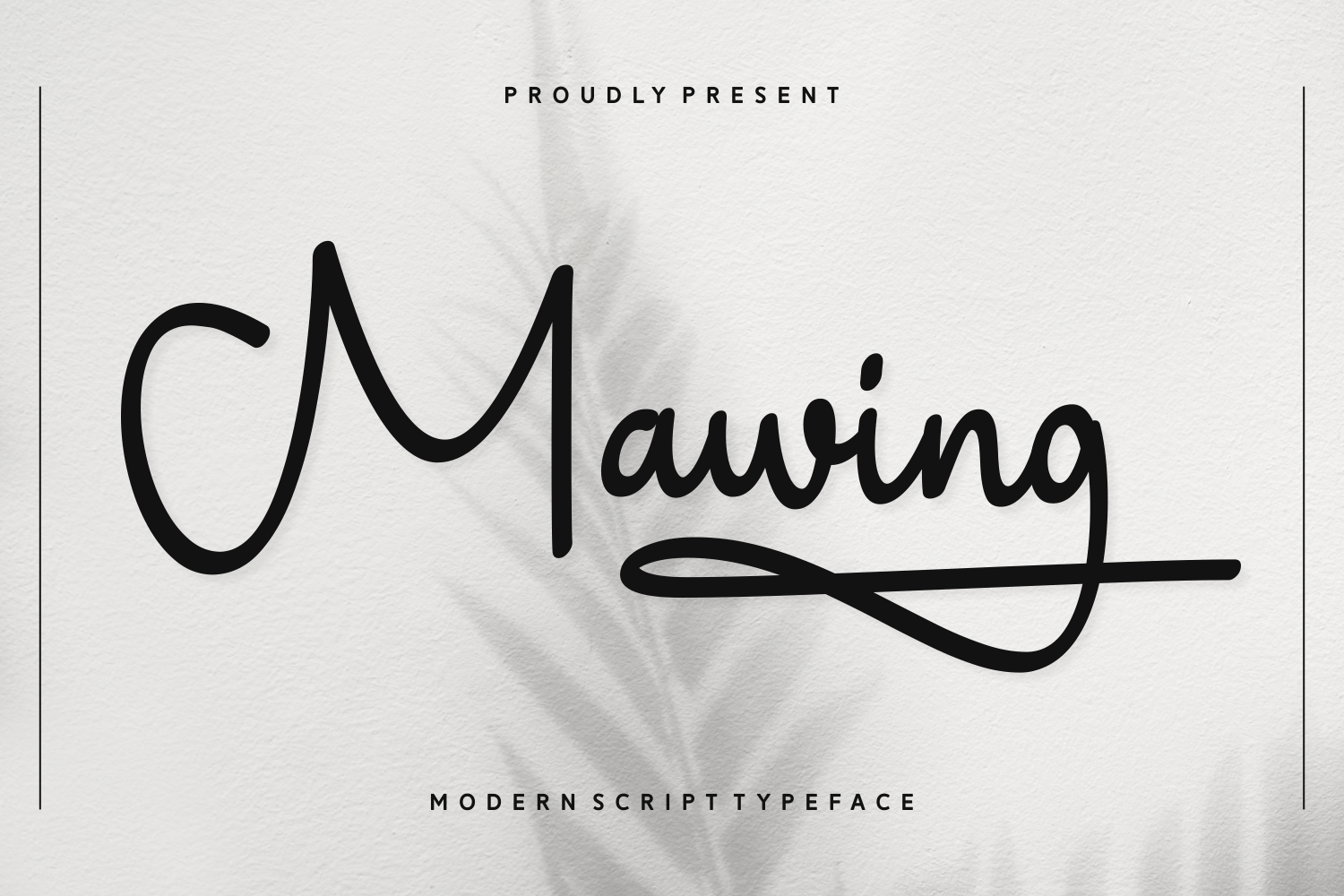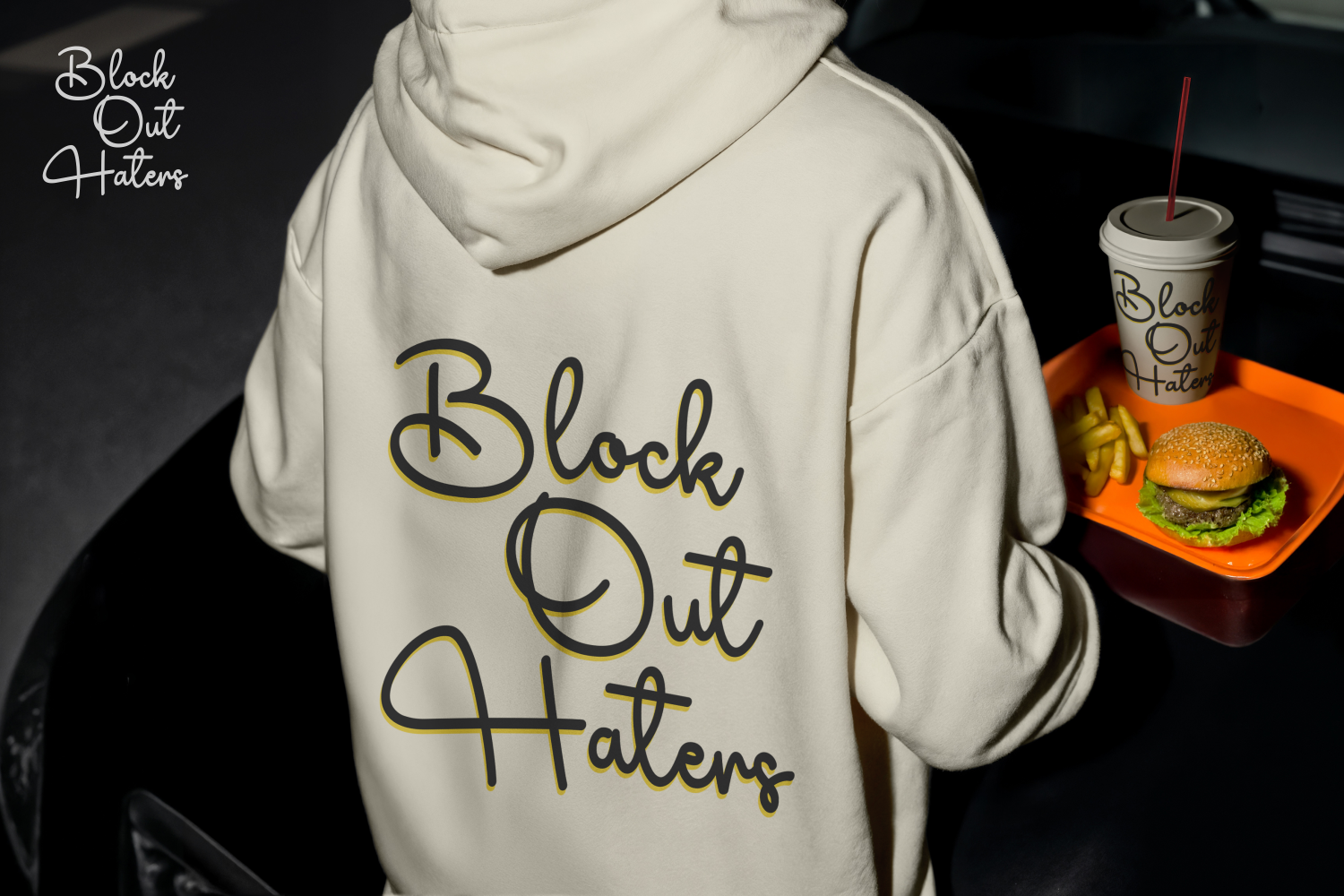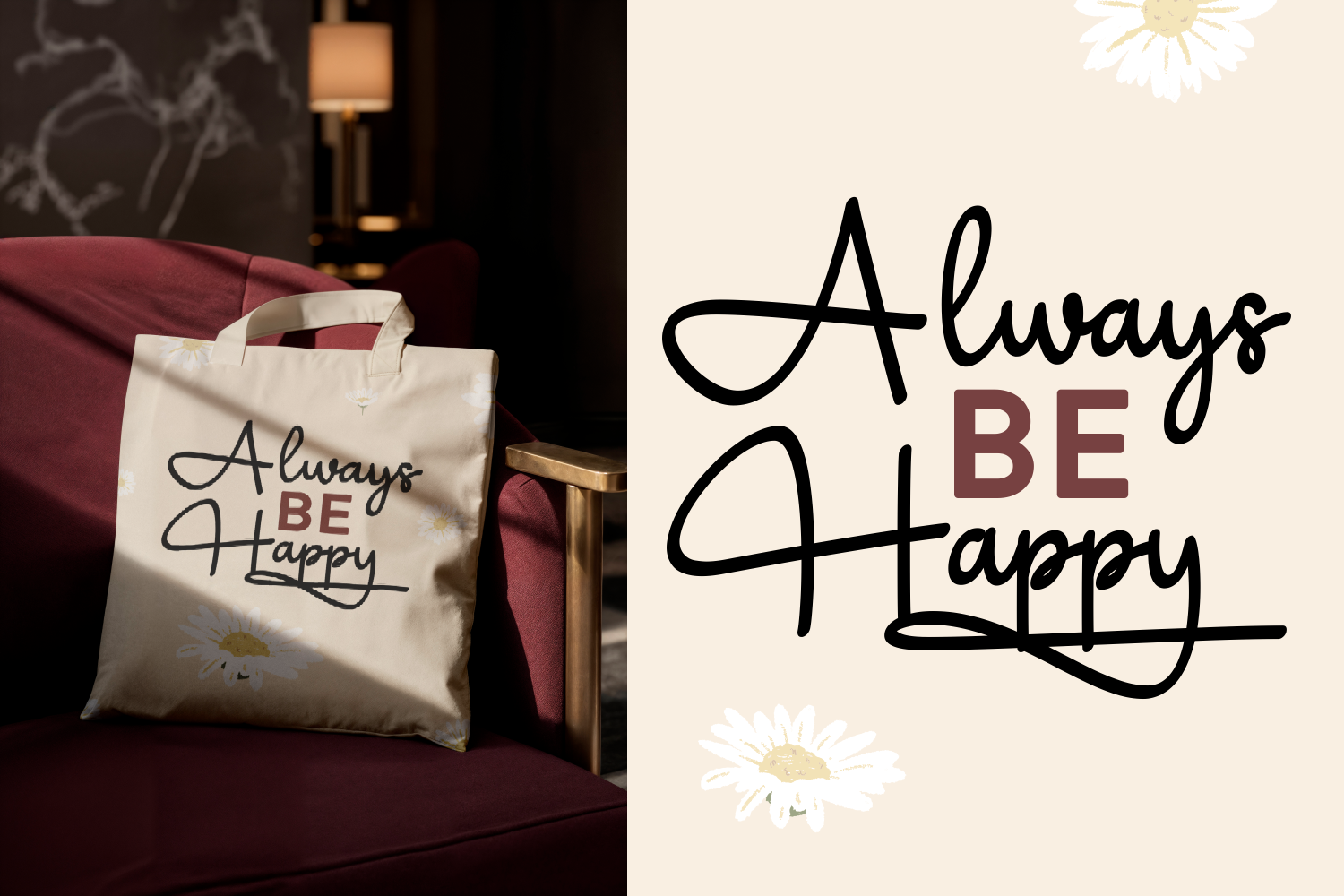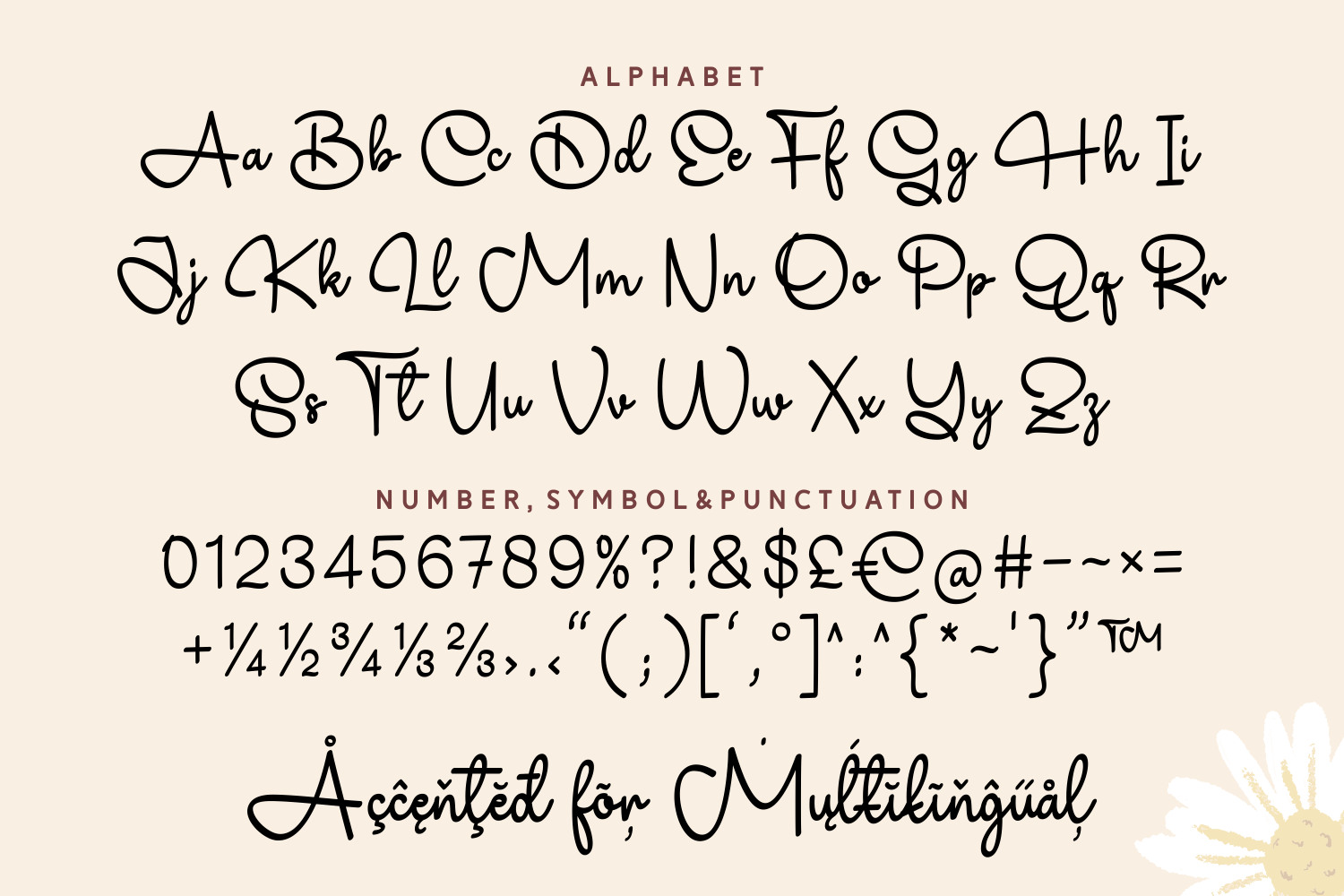
Mawing is a playful and stylish modern script typeface that brings a youthful energy to any design. Its monoline structure ensures a clean, balanced appearance while still conveying warmth and personality.